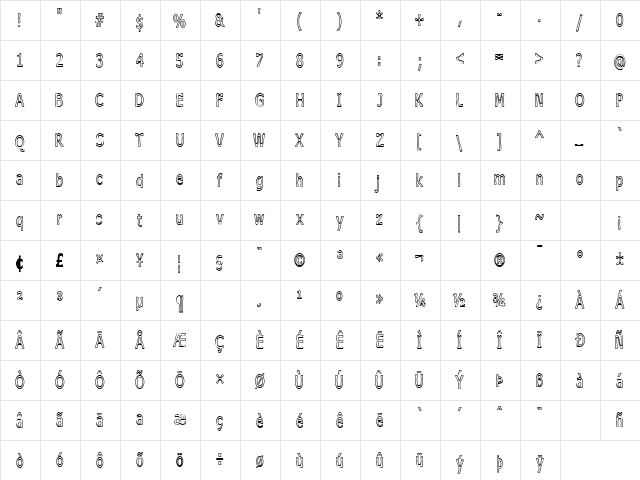
Boneribbon Tall Outline Regular
Design Context for Boneribbon Tall Outline Typeface
Boneribbon Tall Outline brings ornamental detail and strong personality to headlines and identities, where visual impact matters more than quiet functionality.
Font Pairing: Pair with a clean neutral sans-serif for body copy to let Boneribbon Tall Outline's character lead without overwhelming the composition.
Pro Tip: Treat Boneribbon Tall Outline as the centrepiece of your typographic hierarchy. One strong heading set in a decorative face can carry an entire layout.